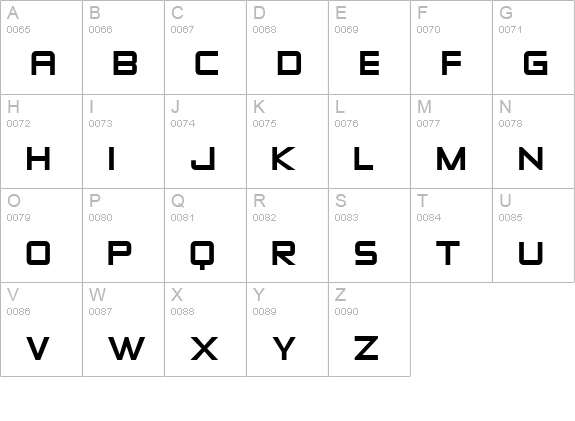
Zeroes Two Font Details
Zeroes Two font is a modern and stylish typeface that will add a sleek and contemporary touch to any design project. This versatile font features clean lines and a unique geometric design that makes it perfect for a wide range of applications, from branding to editorial design. Its bold and eye-catching appearance makes it ideal for headlines, posters, logos, and more. What makes Zeroes Two font even better is that it is available for free download at FontsMarket.com. This means you can easily access this high-quality font without any cost, making it a valuable addition to your font library. Whether you're a professional designer or a hobbyist looking to elevate your projects, Zeroes Two font is a must-have resource that will help you stand out from the crowd.